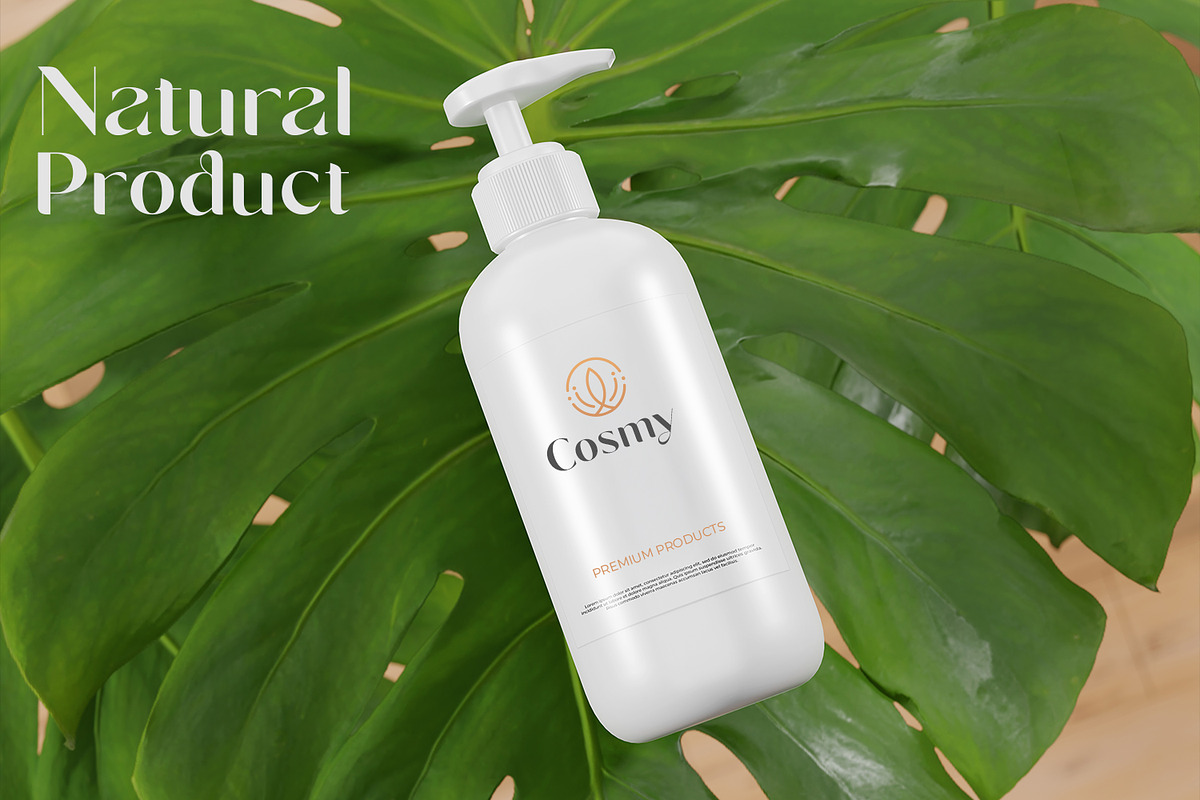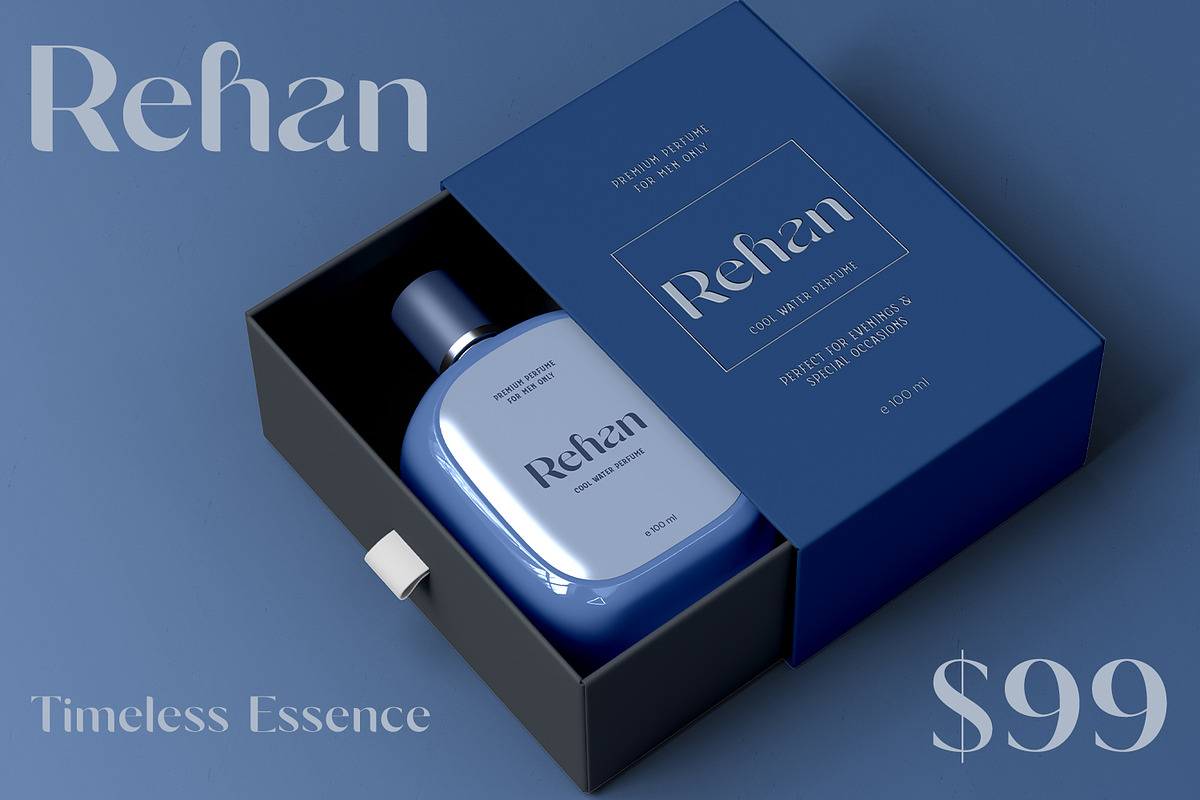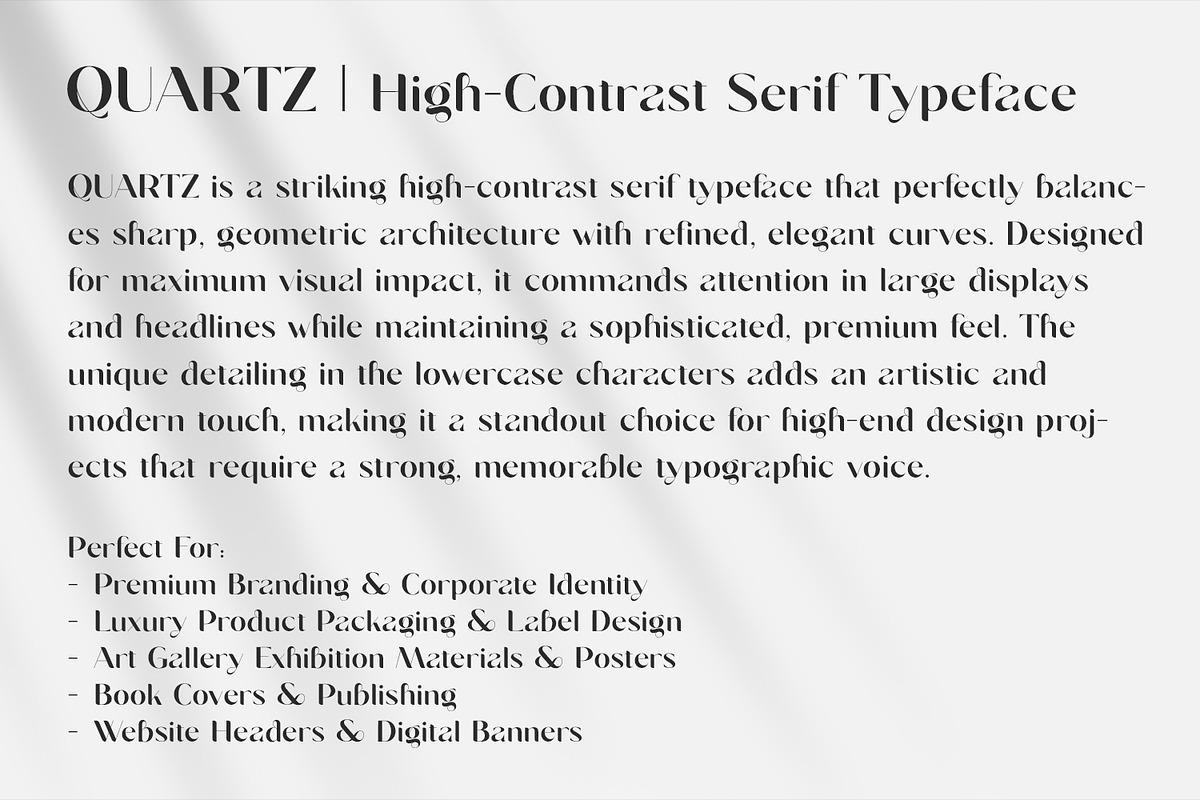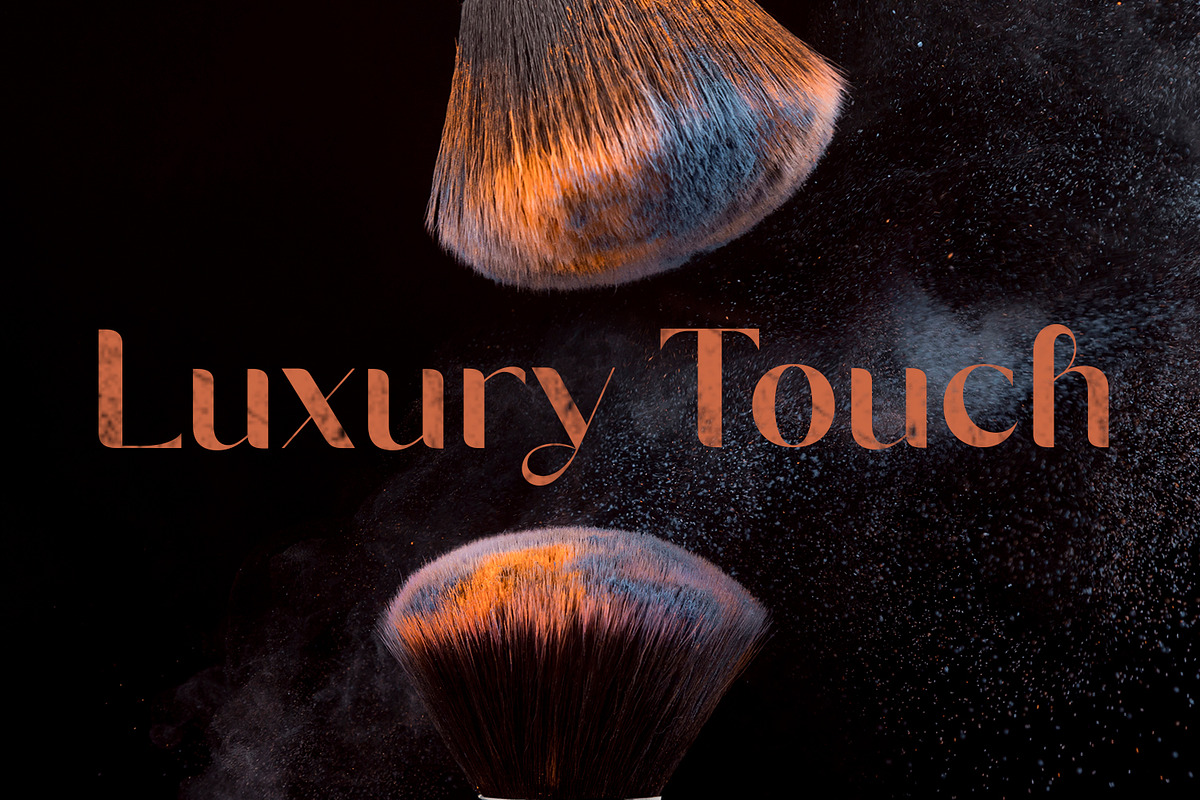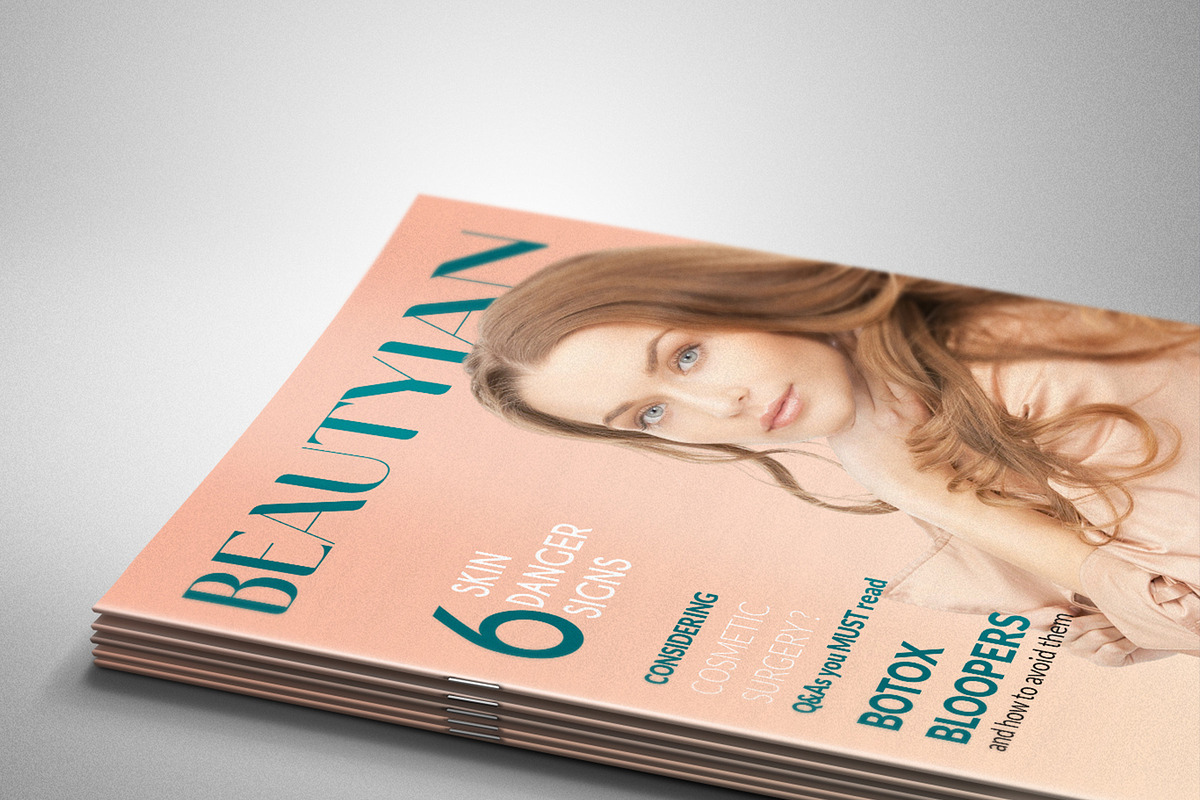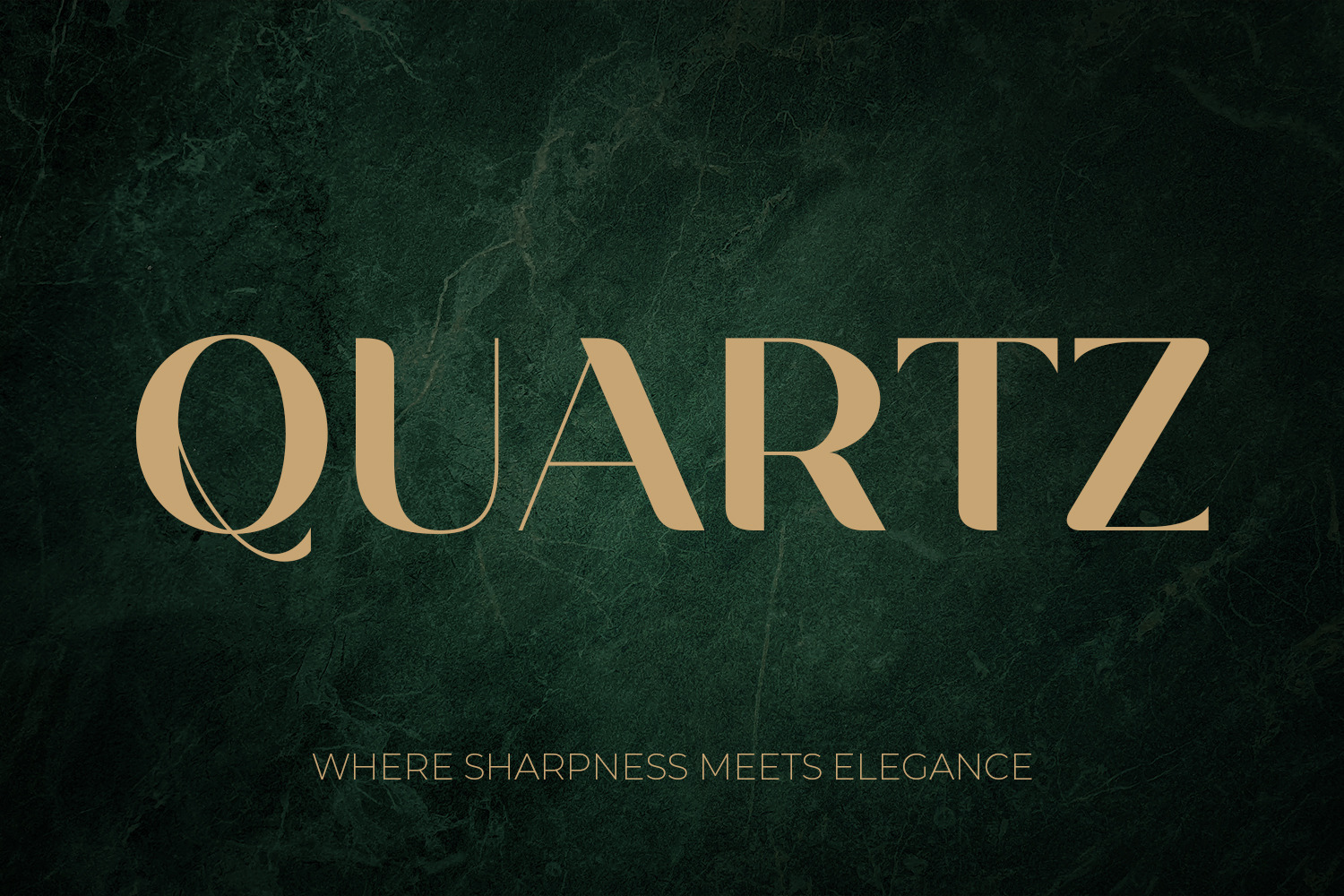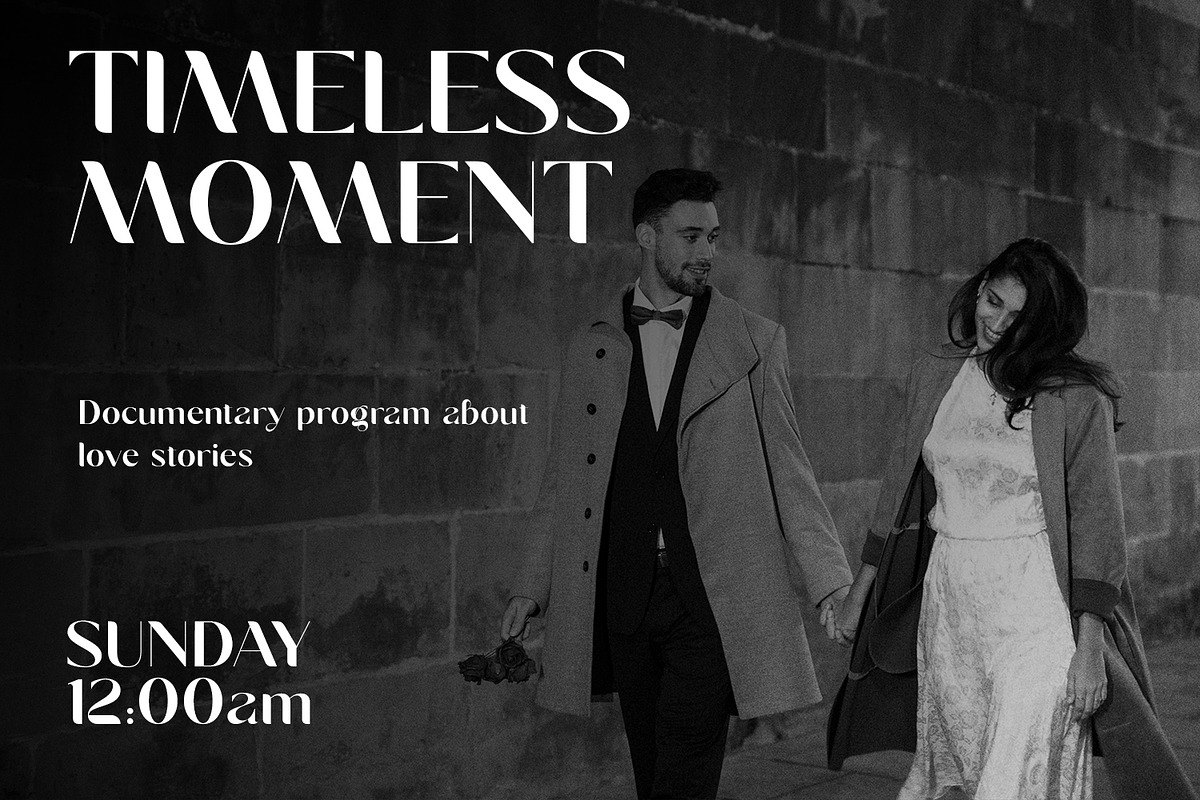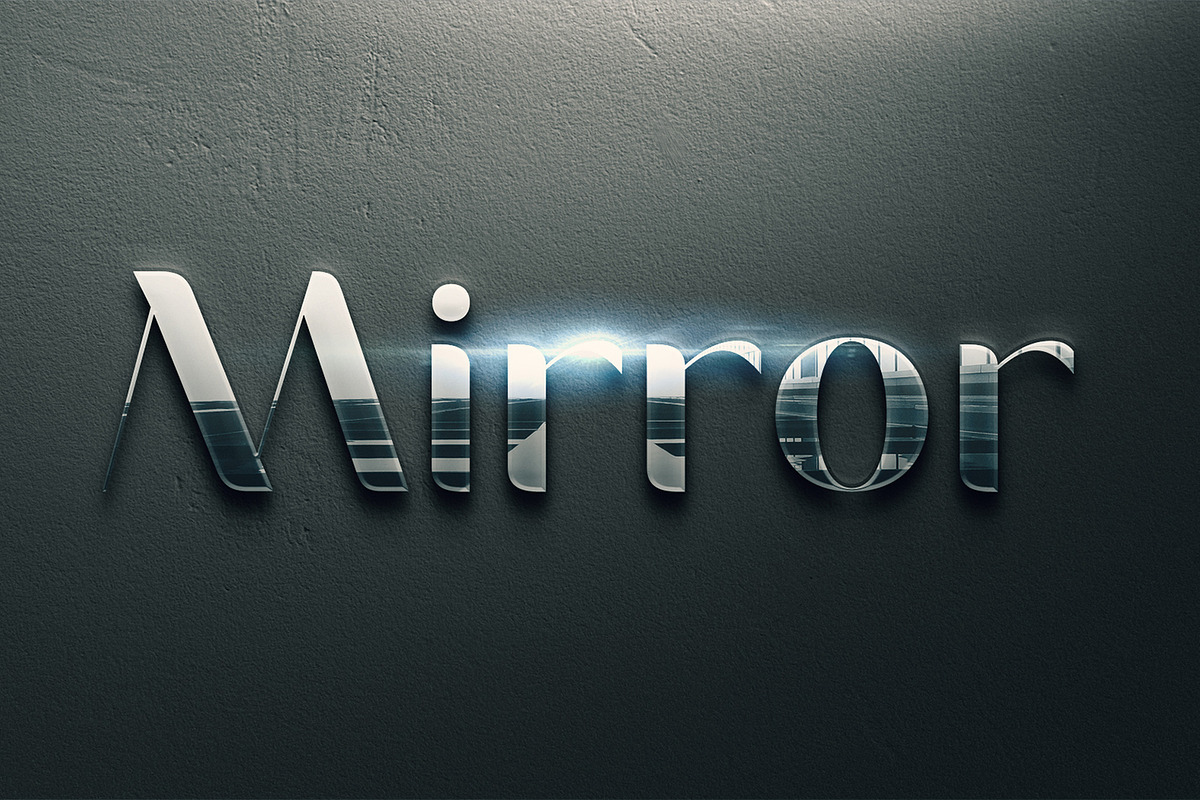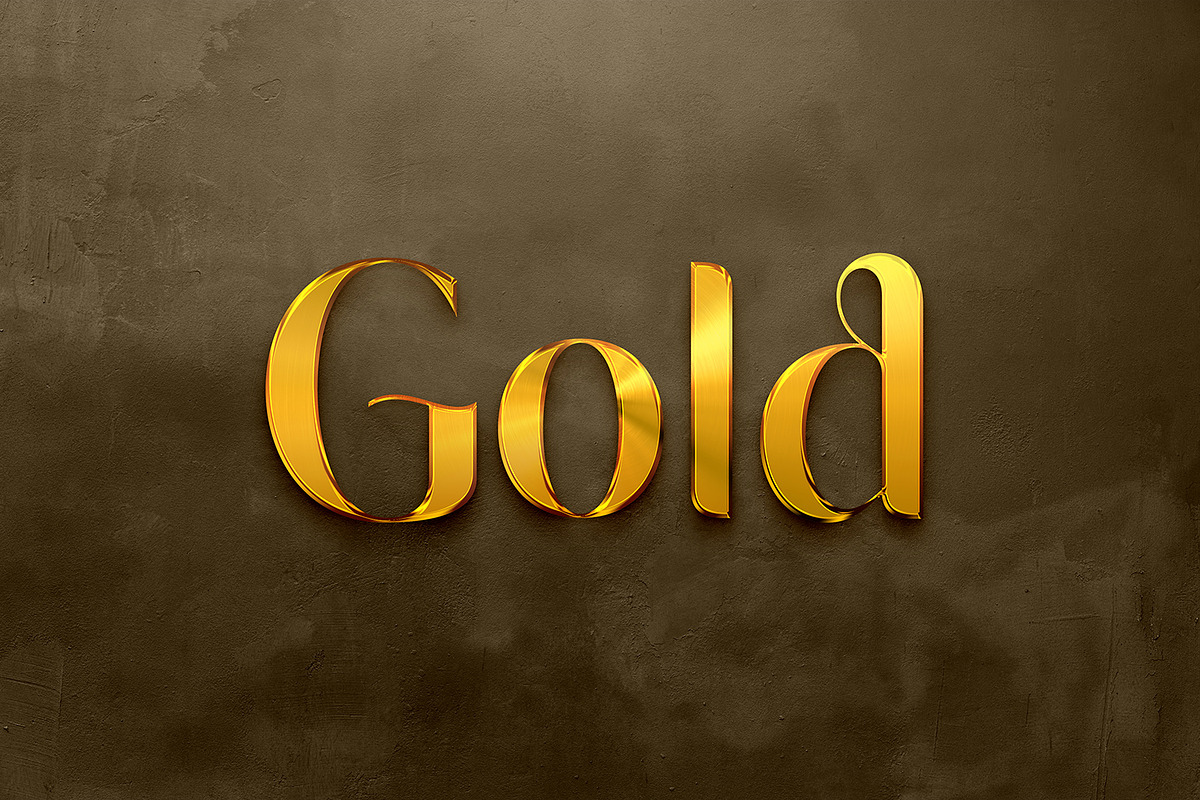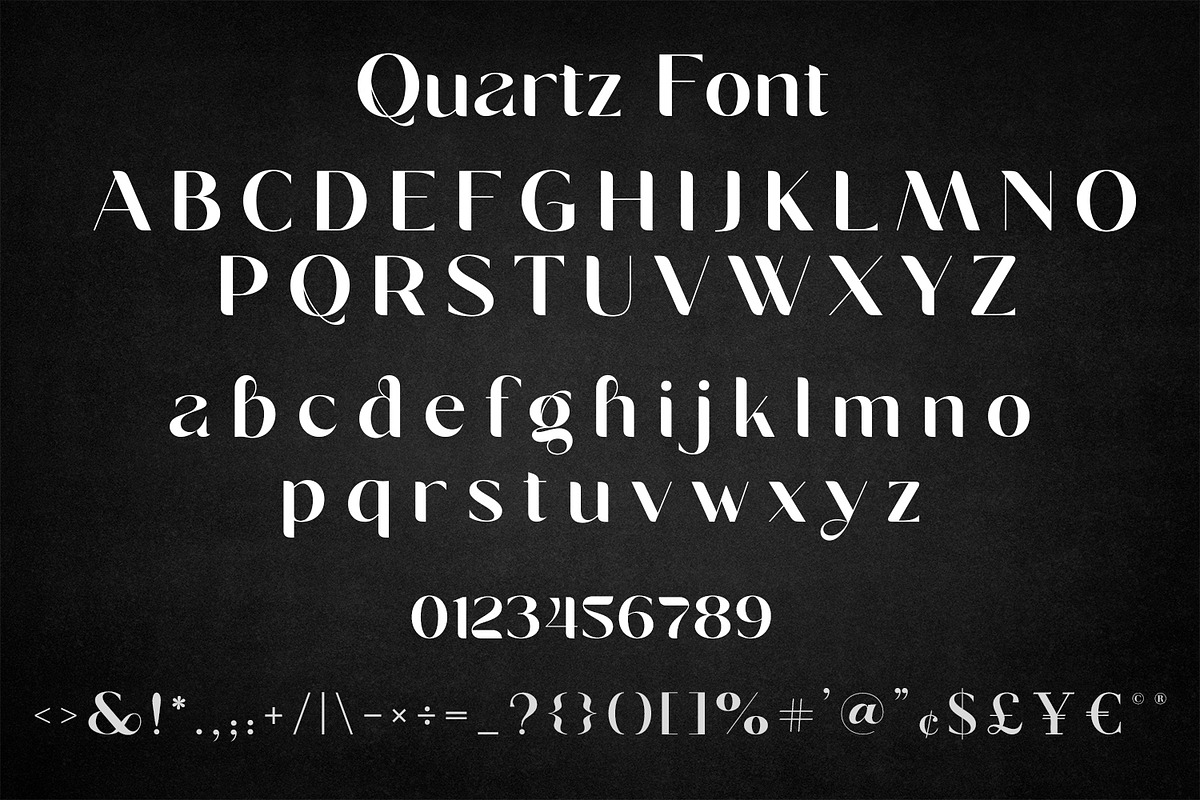
QUARTZ - High Contrast Serif Font
QUARTZ is a striking high-contrast serif font that perfectly balances sharp geometric architecture with refined, elegant curves. Designed for maximum visual impact, it commands attention in large displays and headlines while maintaining a sophisticated, premium feel. The unique detailing in the lowercase characters adds an artistic and modern touch, making it a standout choice for luxury branding, premium packaging, wedding invitations, cosmetic labels, and high-end corporate identities. Elevate your next creative project with the timeless elegance and bold presence of QUARTZ.